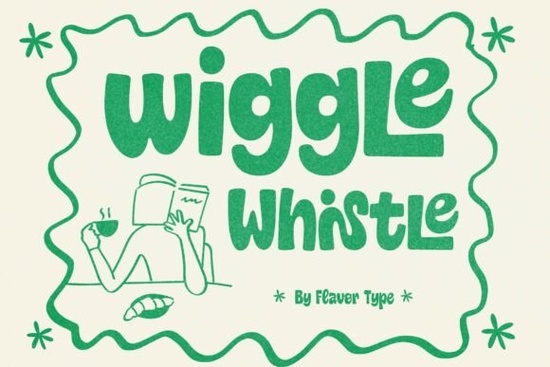
If you are searching for a friendly, playful display typeface that feels warm and approachable, Wiggle Whistle Font might be exactly what you need. This chubby, bubbly display font stands out because it doesn't try to be sleek or serious. Instead, it brings a hand-drawn, cozy personality that works beautifully for food packaging, kids' products, and any design where you want to grab attention without feeling stiff.
What makes Wiggle Whistle Font different from other display fonts?
Most display fonts aim for impact through sharp edges or heavy weight, but Wiggle Whistle takes a softer route. The letters are rounded and thick, with a wavy rhythm that makes text feel like it is bouncing across the page. That wiggle is not random it gives each word a sense of movement and energy. You get bold readability without losing that cute, welcoming vibe. It is the kind of typeface that makes people smile before they even read what it says.
Because the font belongs to the wider distressed font display fonts family in style, it shares that handmade charm, but Wiggle Whistle is cleaner and softer. It works where rough edges feel too messy, but a standard sans serif feels too boring.
Where can I use Wiggle Whistle Font in real projects?
This is where the font really shines. Its friendly shape makes it a natural fit for food and drink branding. Think of ice cream shop menus, bakery labels, hot cocoa stands, or lemonade signs. The chubby letters make everything look more delicious and inviting.
Wiggle Whistle also works well for:
- Kids' product packaging – toys, snacks, or books that need a playful look
- Social media graphics – Instagram stories, TikTok thumbnails, or fun quote posts
- Stickers and stationery – the wiggly shapes add personality to small items
- Event signage – farmers' markets, pop-up shops, or birthday party banners
- Logo ideas – especially for lifestyle brands that want to feel friendly and cheerful
If you compare it with girly pop font display fonts, Wiggle Whistle shares that cute energy but feels more gender-neutral. It can work for a wide range of audiences, not just feminine branding.
Is Wiggle Whistle Font easy to read for titles and logos?
Yes, and that is a big advantage. Some playful fonts sacrifice legibility for style. Wiggle Whistle keeps letters bold and clear, so readers do not struggle to understand what your signage says. The rounded shapes actually help with readability at a distance because there are no thin strokes or complicated details. For a font like crayons font display fonts, you sometimes lose clarity, but Wiggle Whistle balances fun with function.
This makes it a solid choice for packaging where customers glance quickly at your product. Whether it is a cake box, a juice bottle label, or a gift tag, the message stays readable while looking delightful.
How does Wiggle Whistle Font compare to other display fonts for branding?
If you pair it with clean, simple layouts, the font becomes the star. That is important because too many competing elements can make a design feel chaotic. Let the typography do the heavy lifting for mood, and keep backgrounds minimal.
For brand designers, Wiggle Whistle works well as a headline font supported by a simple sans serif for body text. It also pairs nicely with scripts or hand-lettered elements. You can also check out prime varsity font display fonts for something sportier and more structured. But if your brand needs warmth and whimsy, Wiggle Whistle is a more natural fit.
Both can live in the same design toolkit. Wiggle Whistle is for the fun, casual moments, while varsity styles bring that competitive, classic energy. Having both gives you flexibility for different projects.
Can I use Wiggle Whistle Font for seasonal campaigns?
Definitely. The font's bubbly look feels right at home in spring and summer designs, but it also works for holiday projects in a cute or cozy style. Think Valentine's Day cards, Halloween treat bags, or Christmas cookie labels. The wavy forms add playfulness without needing extra illustrations.
For print-on-demand sellers, this font can help your products stand out. Mugs, tote bags, t-shirts, and phone cases with Wiggle Whistle text feel more personal and less mass-produced. That handmade look is what many buyers are searching for right now.
Quick practical tips for using Wiggle Whistle Font
- Keep alignment simple. Center-aligned text lets the wavy rhythm shine
- Use contrasting weights. Pair with a thin sans serif for balance
- Limit the message. Short phrases work best because the font is bold and wide
- Add a soft color palette. Pastels, warm tones, and muted colors match the friendly feel
- Experiment with spacing. Loose letter spacing can make the wiggle more noticeable
Who is this font best suited for?
Wiggle Whistle is a great choice if you are a:
- Small business owner – especially in food, kids' products, or lifestyle goods
- Print-on-demand seller – need fonts that catch the eye on a crowded marketplace
- Crafter or hobbyist – making party decorations, scrapbooks, or custom gifts
- Graphic designer – looking for a friendly display font that clients haven't seen before
The font connects with people on a simple, emotional level. It does not try to be trendy or clever. It just makes words feel friendly, and that is hard to do well.
Before you download Wiggle Whistle Font, check this list
- ☐ Short phrase ready? The font works best for headlines and logos